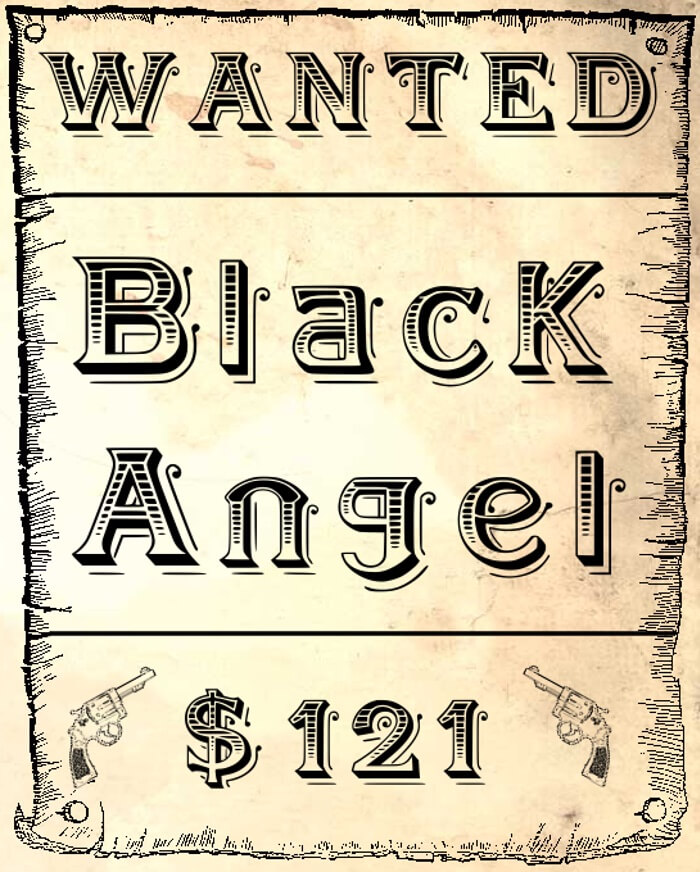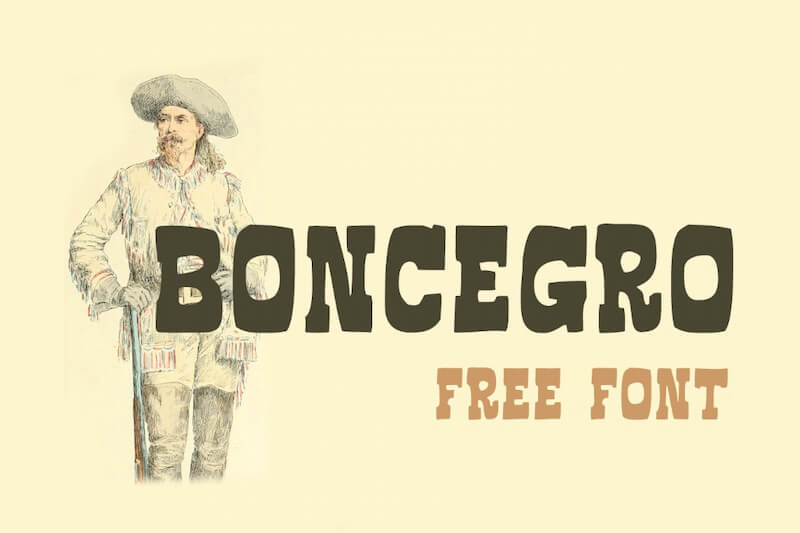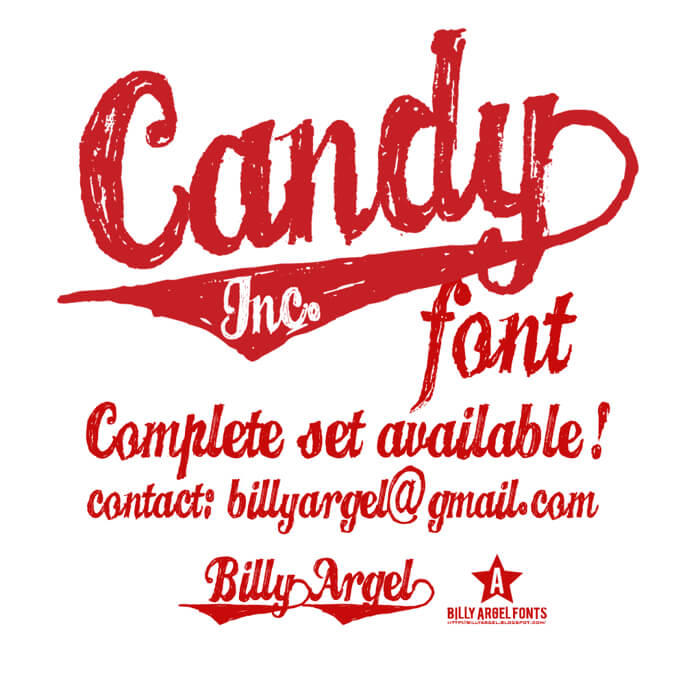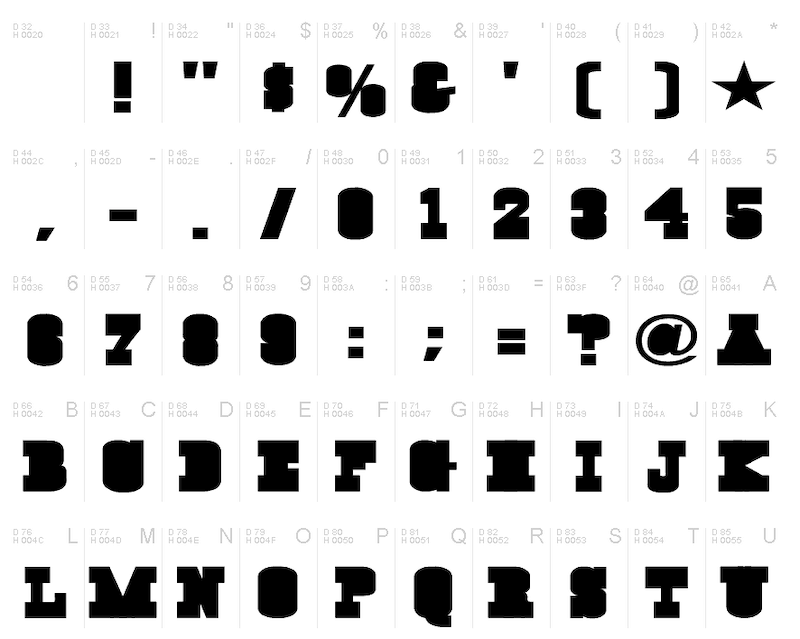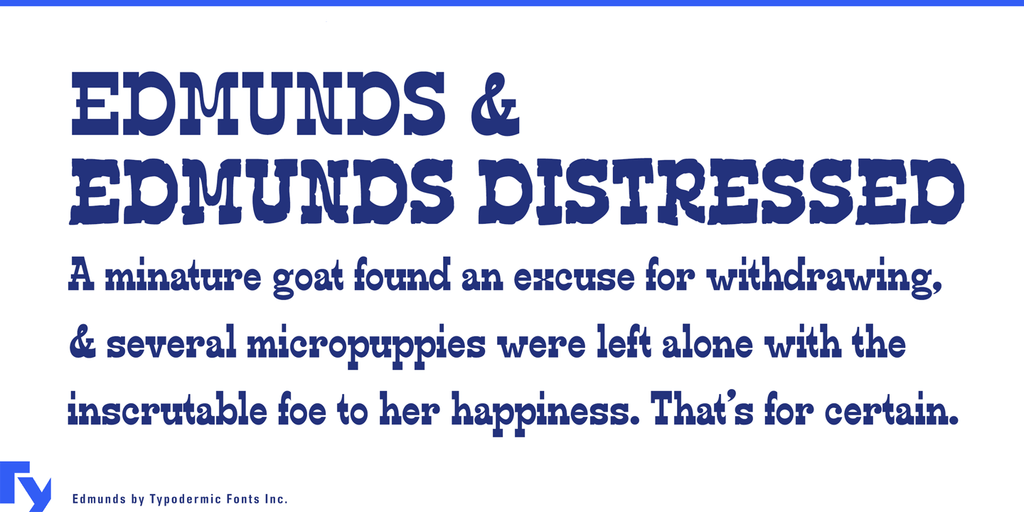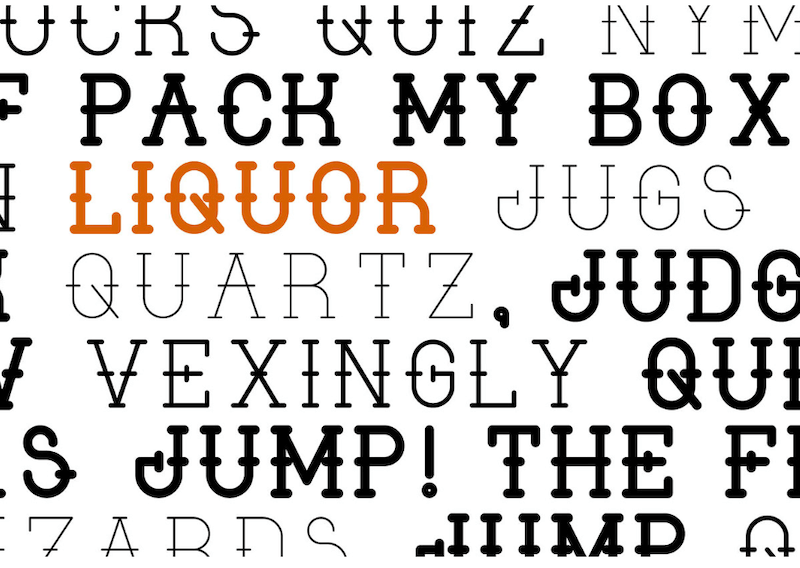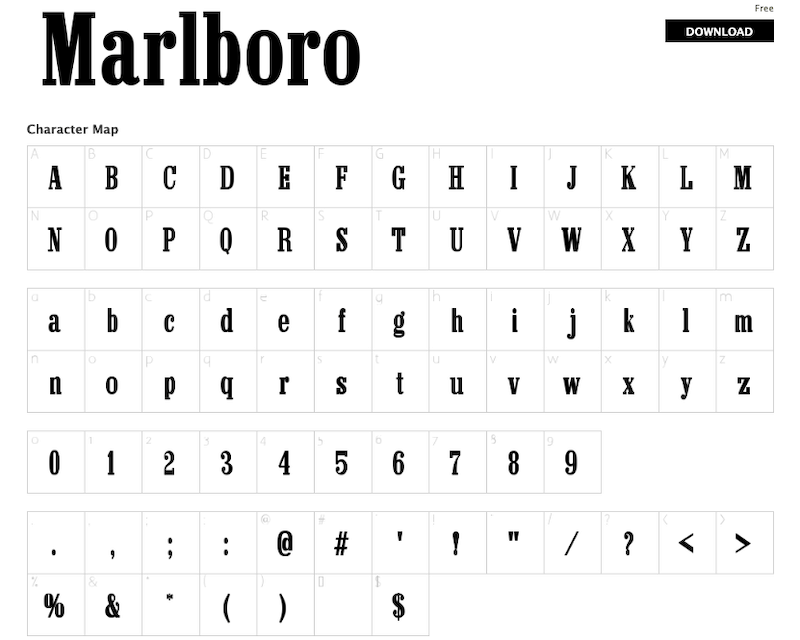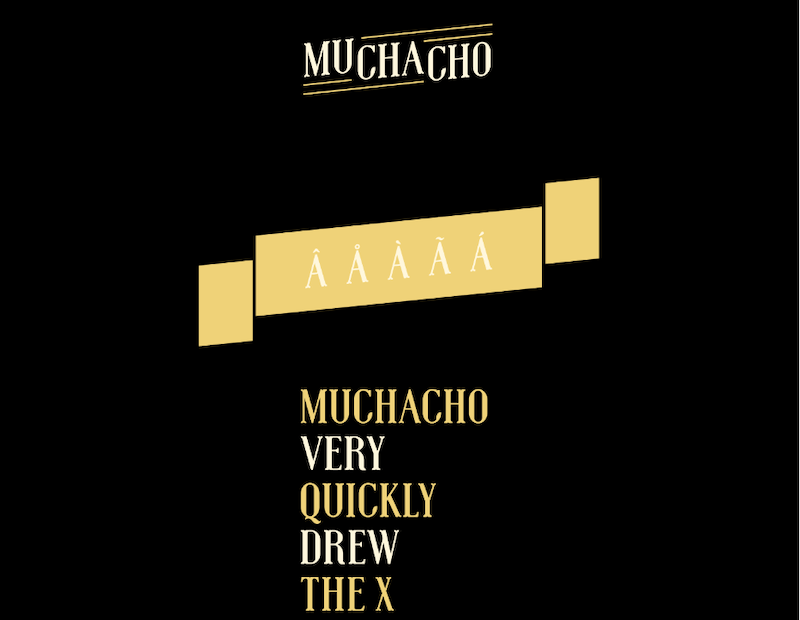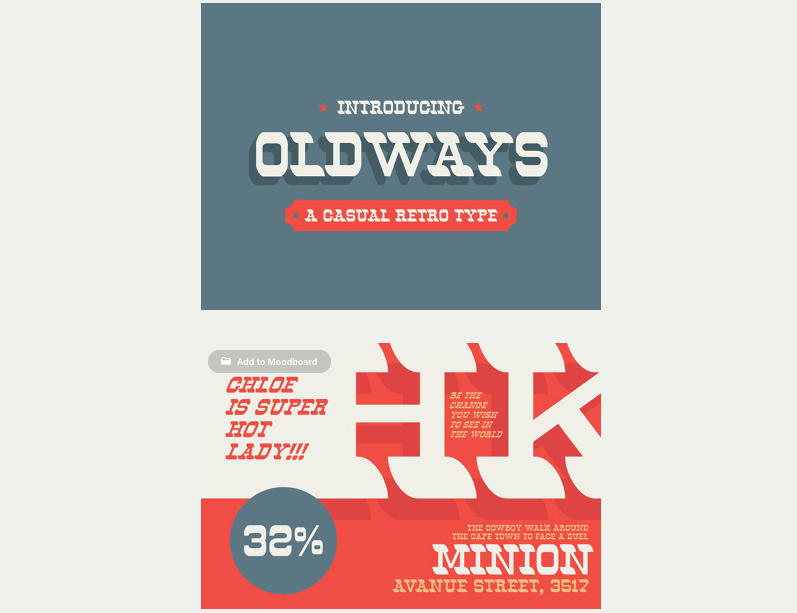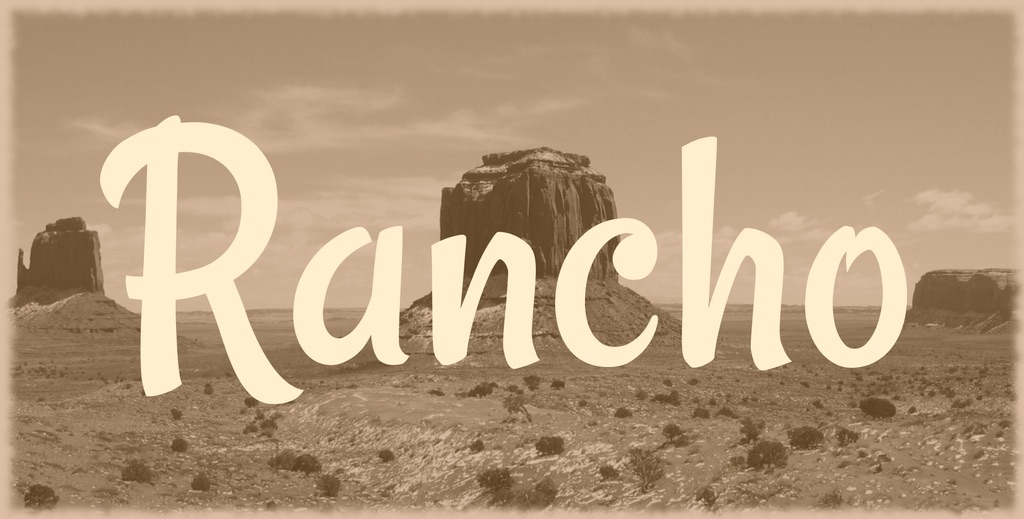
Are you looking for the best western cowboy fonts for your design? If so, we have listed some of the best font options for you in this article.
While working on a project, you have to find ways to attract your audience in the best way possible.
And whether it is graphic designs of the product, the content or any other design, the font design used usually a feather in the cap.
A large section of your audience gets attracted by the font design and it may actually shape the engagement levels.
So, finding the perfect font for your project can be a difficult task. If you are looking for the best western cowboy fonts that reflect the spirit of the American West, we have compiled the best free cowboy fonts for you.
Top Cowboy Fonts
01. Muchacho
This western style font has been designed by Jeff Schrieber. This font has quirky legs and contains all capital letters, numbers, diacritical marks and punctuation marks. This type of font is generally printed on t-shirts and posters.
02. Gunslinger
One of the most stylish cowboy fonts is influenced by old western style. It as created by KC fonts in 2012. Gunslinger is a licensed product which means that it can be used for free only for personal use. If you have to use it for commercial purposes, you need to purchase a license.
03. Liquor Typeface
This western style font is inspired by old booze labels. It was published in March 2013 and is available in 3 weights that are thin, regular and bold.
This texas style of art can be used in your personal projects to have an immediate effect.
04. Malboro
This cowboy font is designed by Dieter Steffmann which is available for free. This simple yet bold design is a go-to font for every designer. It can be used on t-shirts, trade-fairs and even on products. It has a vintage touch.
05. Oldways
A perfect retro-style font that is still popular among its users. It is used to give retro-style look in a modern way to your project. It is available in 2 styles: regular and italic. The best part of this font is that it is free to download for both personal and commercial purposes. It is highly suitable for designing logos.
06. Weston
The main purpose of this font is to provide designers with display font additions. It is inspired by the evergreen Grover and Rockwell. This font would be perfect for logos, t-shirts and even headlines. It is available in 2 styles: light and regular.
07. Rio Grande
This versatile cowboy font gives a vintage look that can be used for posters and headlines. This font is free for personal use but requires licensing if it is to be used for commercial use.
08. Ink in the meat
Ink in the meat font was created by Billy Argel in 2011. It is a tattoo-font that appeals to the masses that want to insert the ink by a tattoo artist. It is free for personal use but requires a license if you want to use it for commercial purposes.
09. Le Super Serif
A fashionable typeface with a modern flavor, Le Super Serif includes 88 ligatures and alternate characters. It is available in 2 styles regular and semi-bold. This font is generally used in the branding of a product.
10. Western Square
Western Square is designed by Ju Dzign. This design is inspired by the vintage decoration of bottles. It is available for free for both personal and commercial usage.
11. Bleeding Cowboys
It is also a tattoo font that was created by the Last Soundtrack in 2007. The deteriorating effect of this font makes it one of the most popular cowboy fonts. It is available for free for personal use. If you have to use it for commercial purposes, you have to purchase the license.
12. Chocolate Dealer
Another one created by Billy Argel is appealing to people who want to design posters, magazines, and advertisements. This curvy font is available for free for personal use, however, you need a license for commercial purposes.
13. Helldorado
Another one inspired by vintage art was created by No images in 2001. This font can be used for designing posters and logos. It is free for personal use and requires licensing for commercial use.
14. Boncegro FF
Boncegro FF is created by Sergiy Tkachenko. One of the best western fonts has a Latin touch that can be exploited during designing posters, headlines, and magazines. It is available for free for both personal and commercial purposes.
15. Ginga
Another font created by Billy Argel. The corroded design of this font is appealing to design posters. This western font set includes lowercase letters, uppercase letters, numerals, and characters.
16. Candy Inc
Another font from the wardrobe of Billy Argel might be the perfect font for decorative purposes. This font is free for personal use only and therefore needs a license in order to use it for commercial purposes.
17. Cow Cow
This extra bold western-style font is perfect for t-shirts and posters. The set includes characters and uppercase letters. This font can be used for free for personal purposes and needs a license for commercial purposes.
30. lack Angel
The Black Angel was font is inspired by the wanted posters. It was created in 2013 by Fontden. This font is ideal for posters and logos.